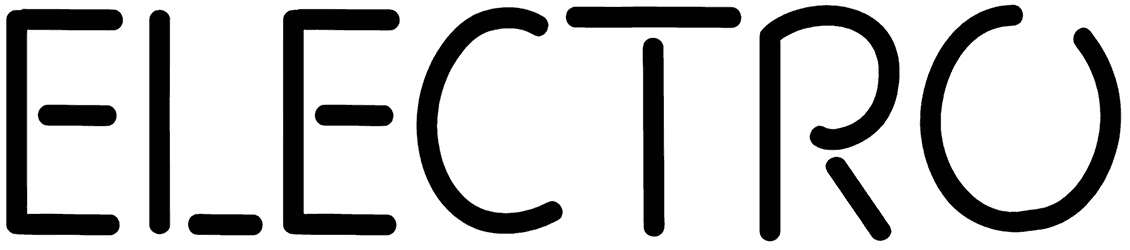
Electro Font
Electro is an expressive and robust font that conveys a strong personality and is perfect for large screens and branding. This stencil font has narrow lines and includes a set of the boldest and most prominent characters…
Electro is an expressive and robust font that conveys a strong personality and is perfect for large screens and branding. This stencil font has narrow lines and includes a set of the boldest and most prominent characters, but does not include lowercase letters.
Despite this lack, you can get inspiration from this neon font for your next project and use it on magazine covers, billboards, and advertisements.